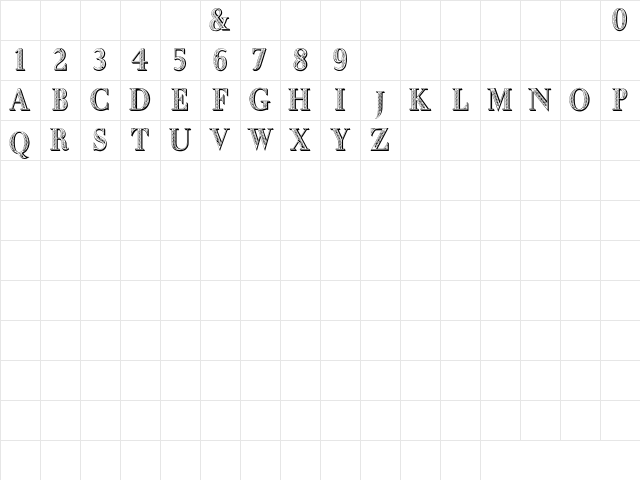
Complete MOLE FOLIATED Normal glyph index. Displaying only characters natively supported by MOLE FOLIATED Normal font.
MOLE FOLIATED is a composed and adaptable typeface that performs quietly and consistently across a wide range of design contexts.